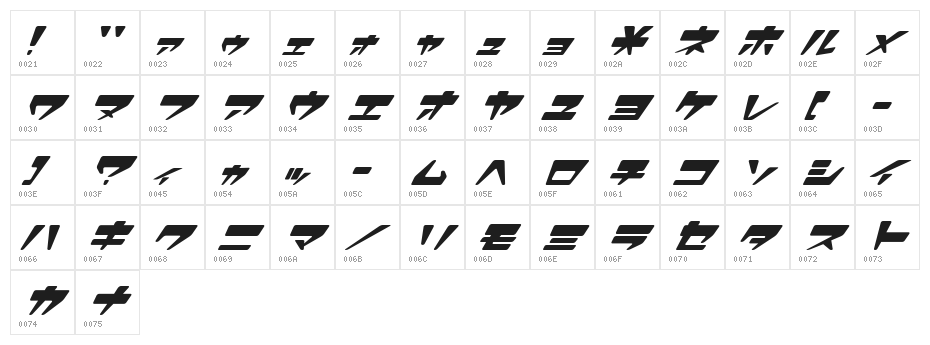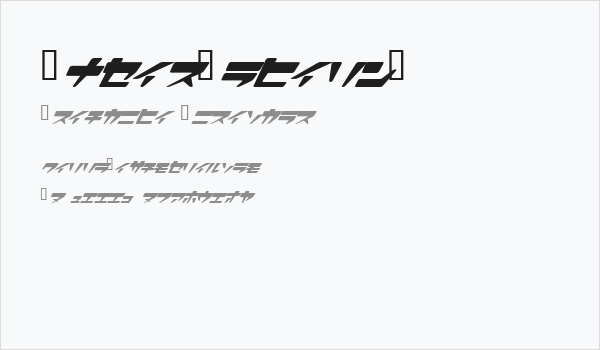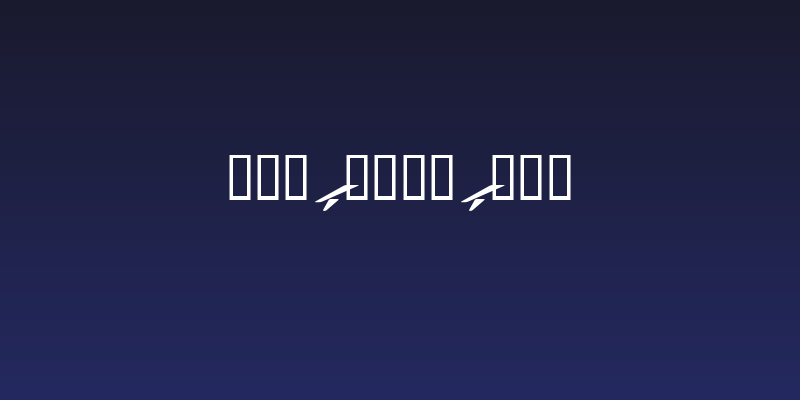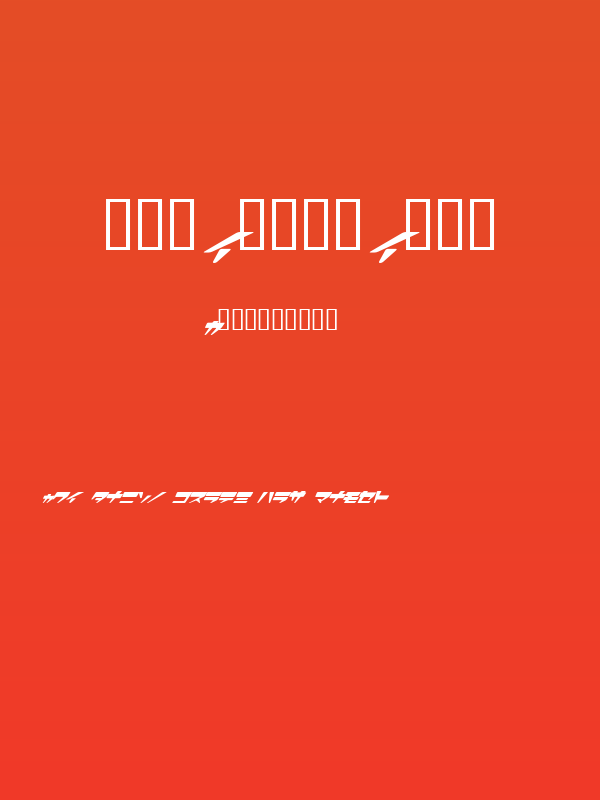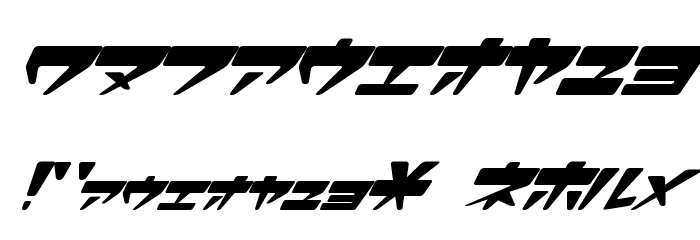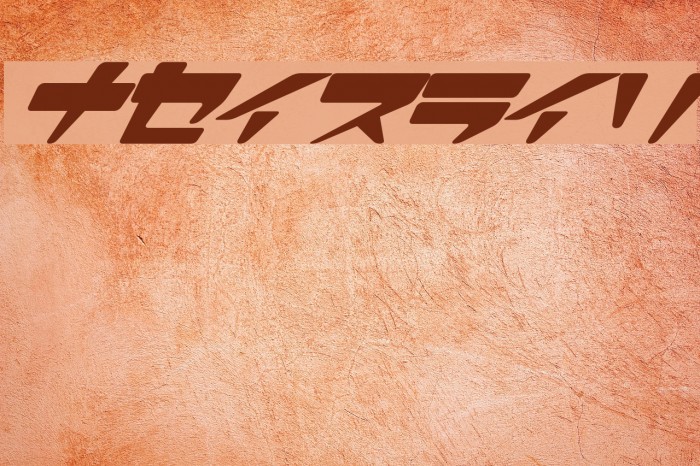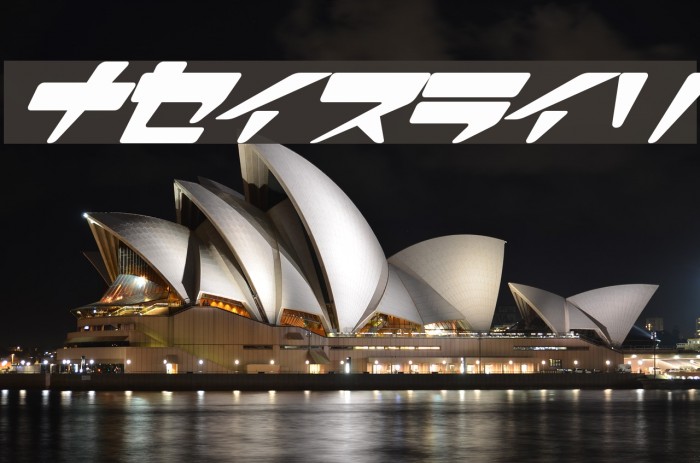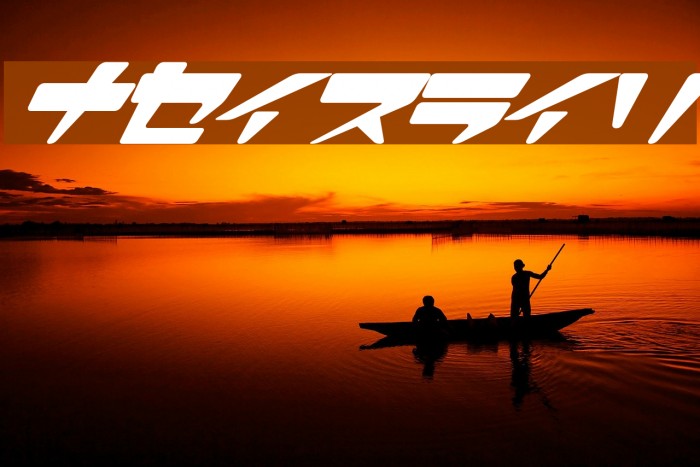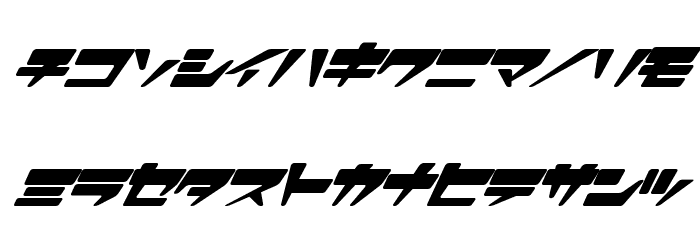
SuperLovelyI Font
SuperLovelyI Description
A bold, italicized display font with a strong slant to the right, featuring thick strokes and sharp, angular terminals. The letterforms are geometric and condensed, with tight character spacing and a dynamic, energetic appearance. The font has a modern, futuristic style, suitable for attention-grabbing designs.
| Overall Style | Modern, Futuristic, Decorative |
| Proposed Projects | Posters, sports branding, video game titles, event flyers, sci-fi themes. |